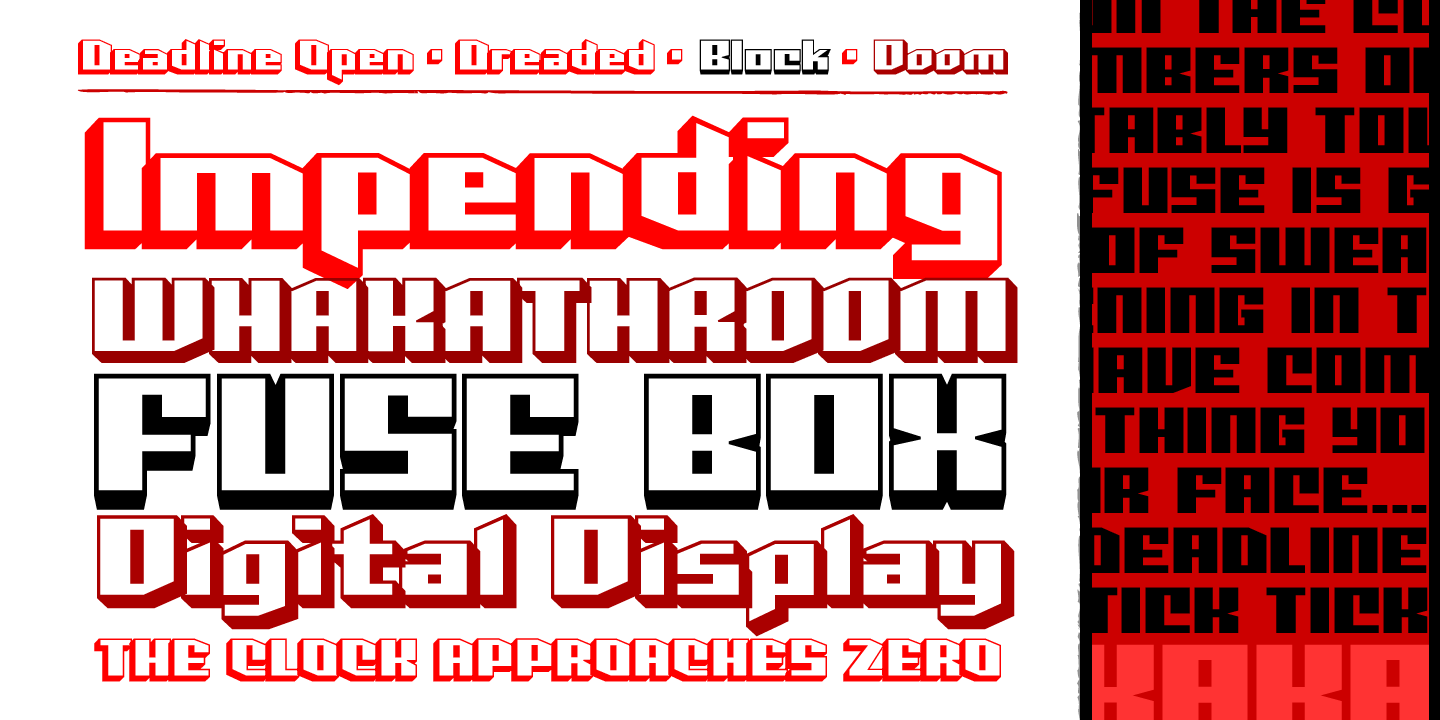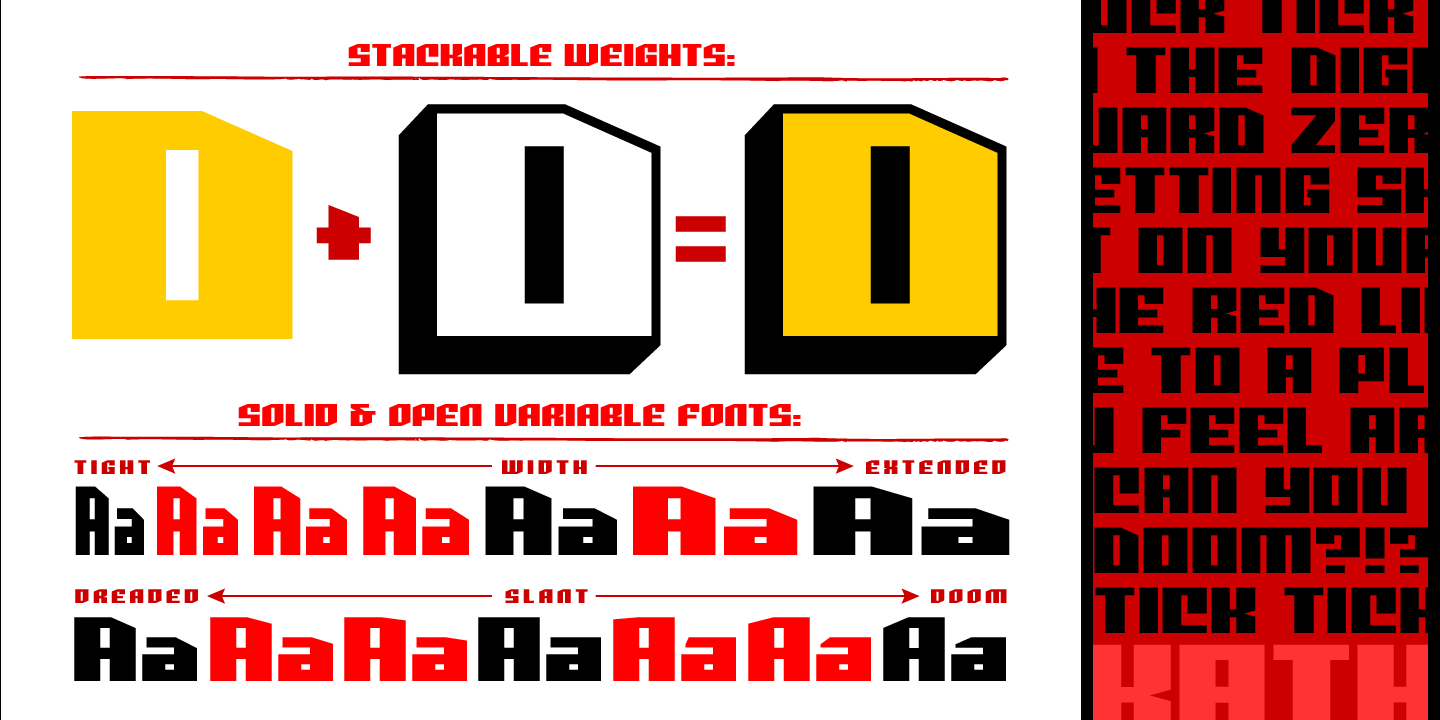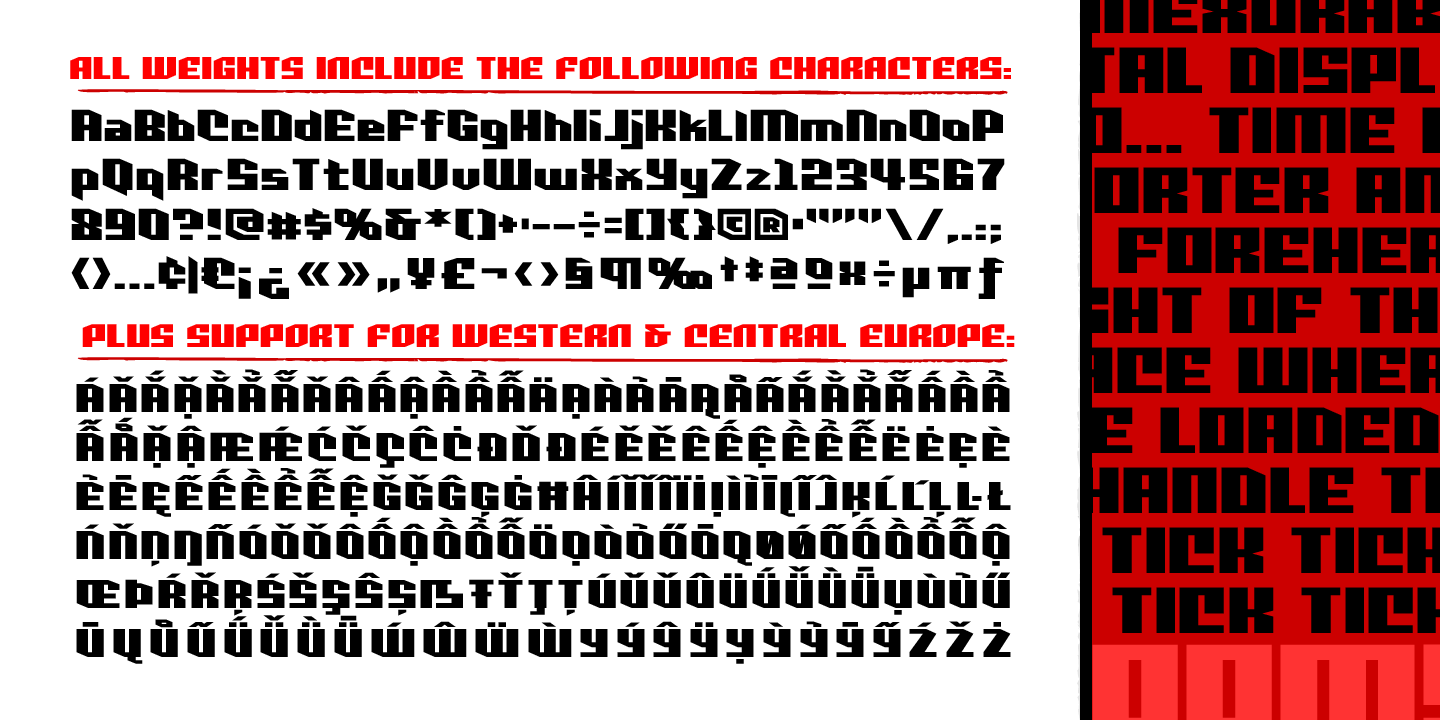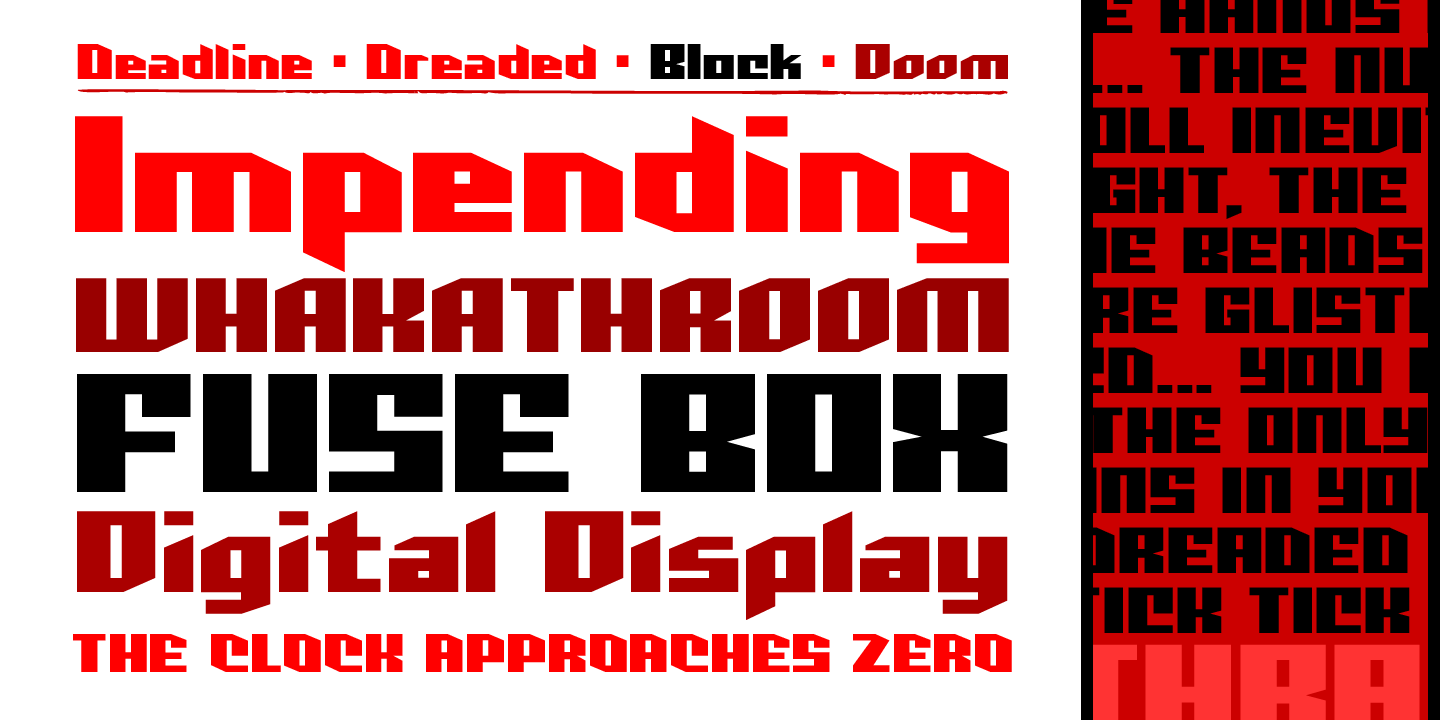
About Deadline
The hands on the clock tick inexorably on… the numbers on the digital display roll inevitably toward zero… time is tight, the fuse is getting shorter and the beads of sweat on your forehead are glistening in the red light of the LCD… You have come…